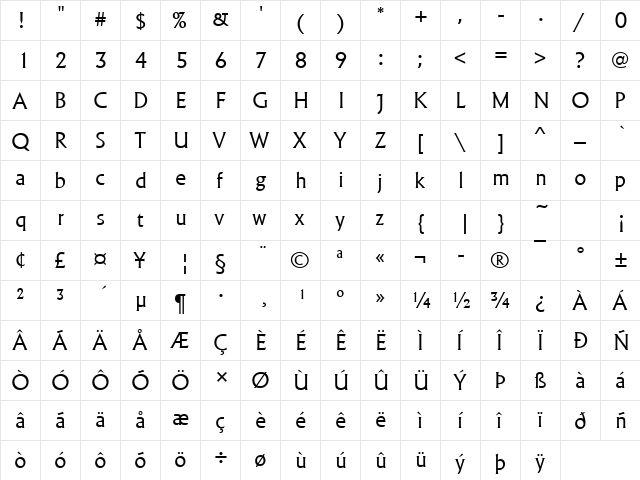
LapidarSerNo2URWTLig Regular
Design Context for LapidarSerNo2URWTLig Typeface
LapidarSerNo2URWTLig is a composed and adaptable typeface that performs quietly and consistently across a wide range of design contexts.
Pro Tip: Use LapidarSerNo2URWTLig in both headline and body roles to test its range before committing to a single application.